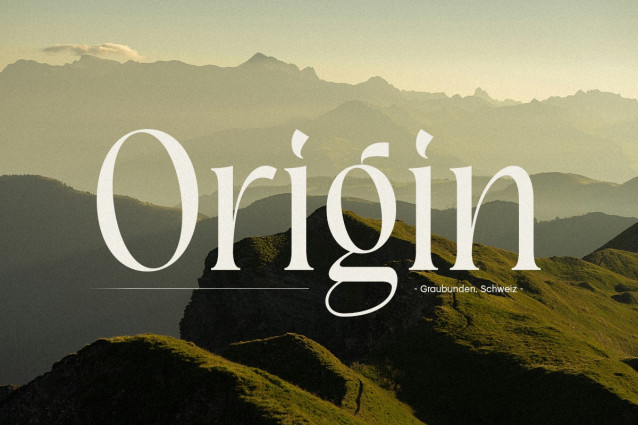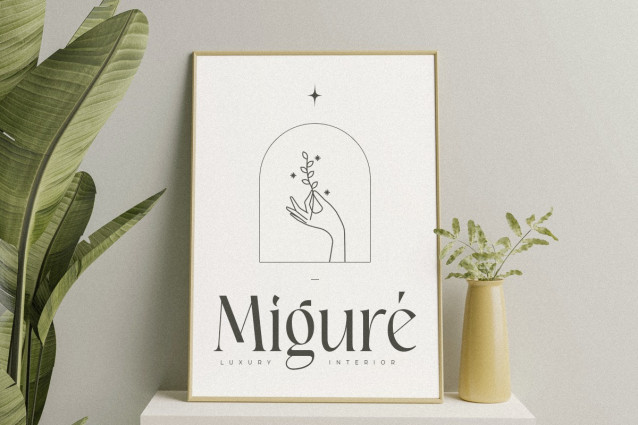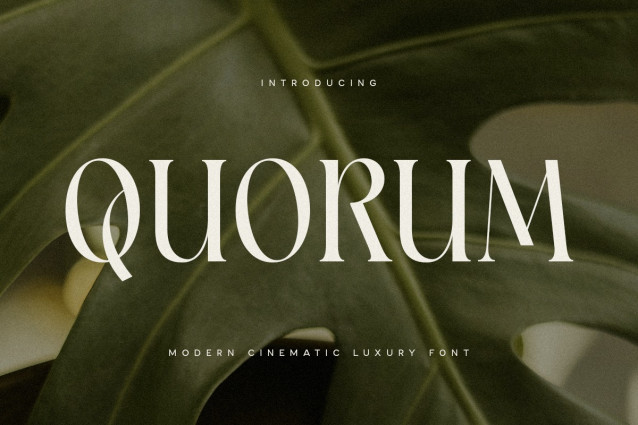
Quorum Font
Quorum Font the epitome of luxury and cinematic elegance in a serif font. Perfectly crafted for sophisticated and high-end designs, Quorum brings a touch of class and refinement to any project.